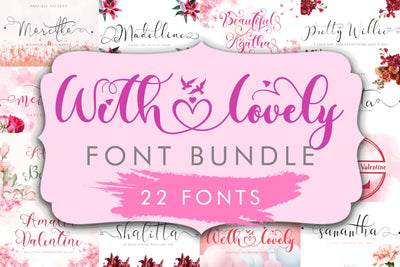
With Lovely Font Bundle
This bundle is perfect for a variety of projects such as christmas, halloween, fall, autumn, back to school, weddings, designs, branding, logos, invitations, stationery, social media posts, advertisements, product packaging, product designs, labels, photography, valentine, easter, mother day, father day, watermarks, special events or whatever.